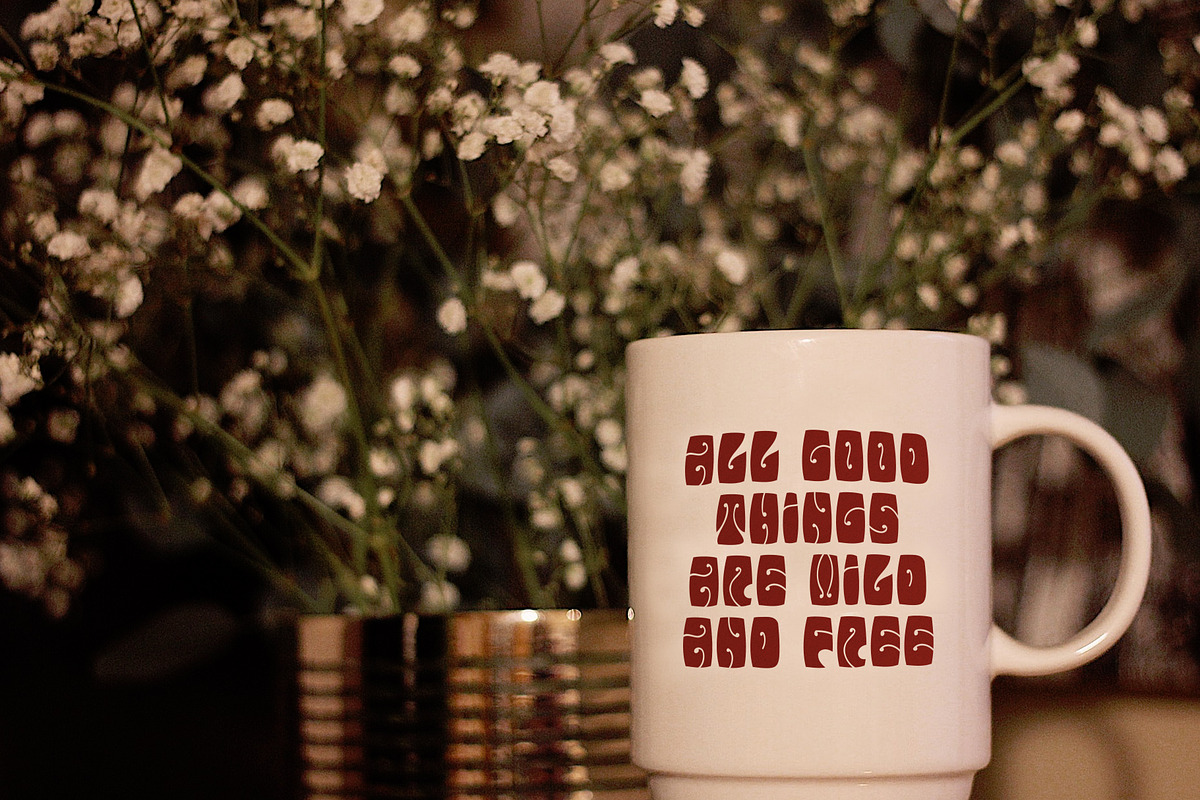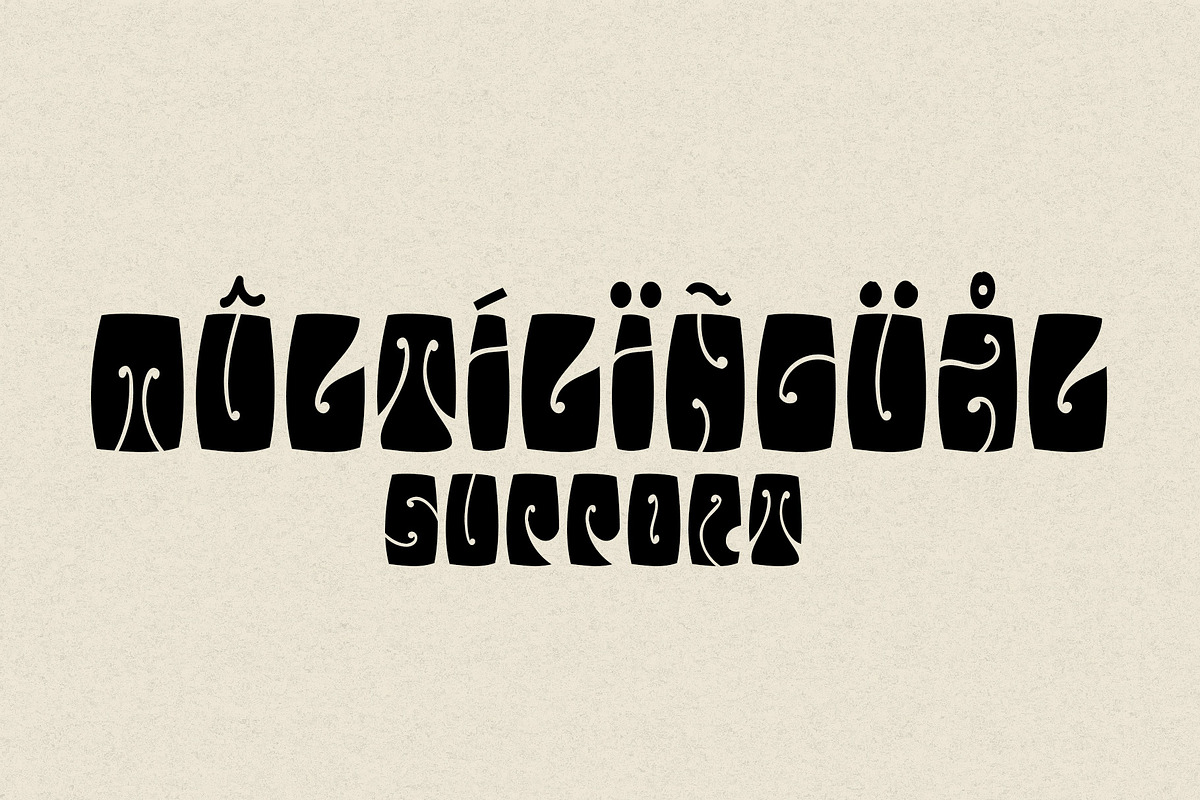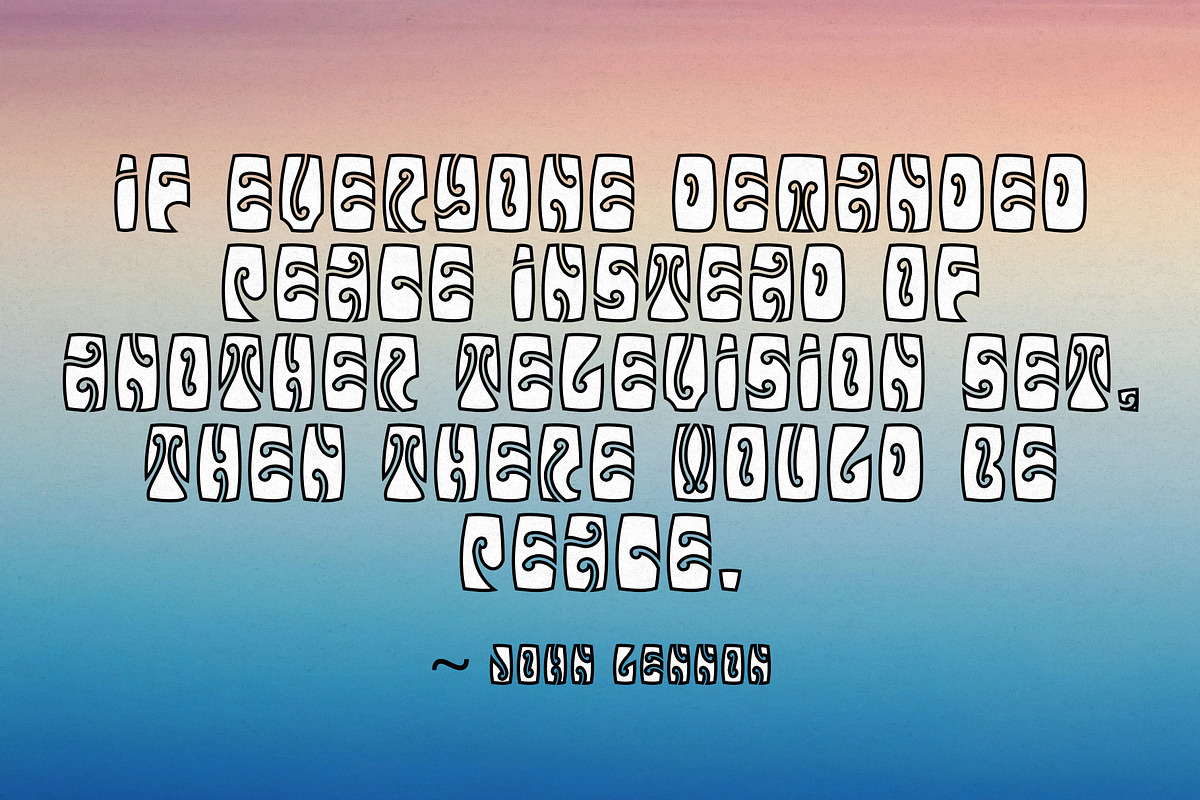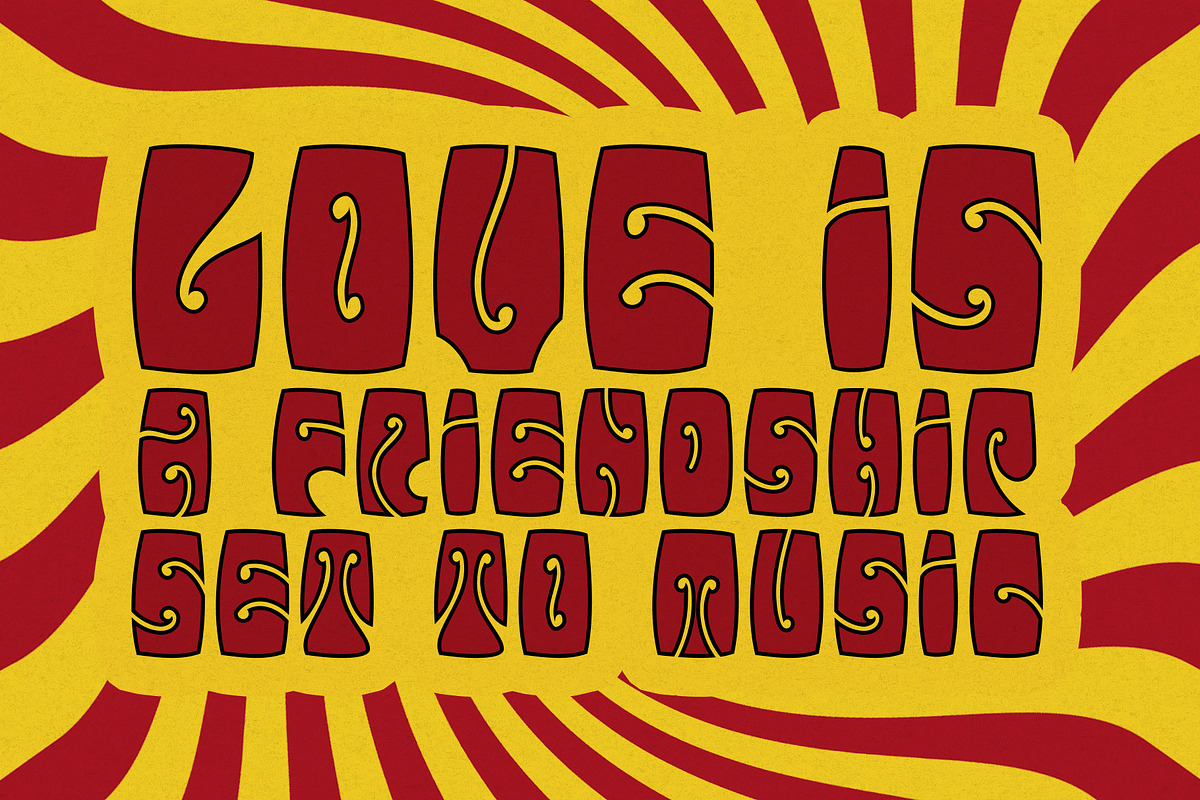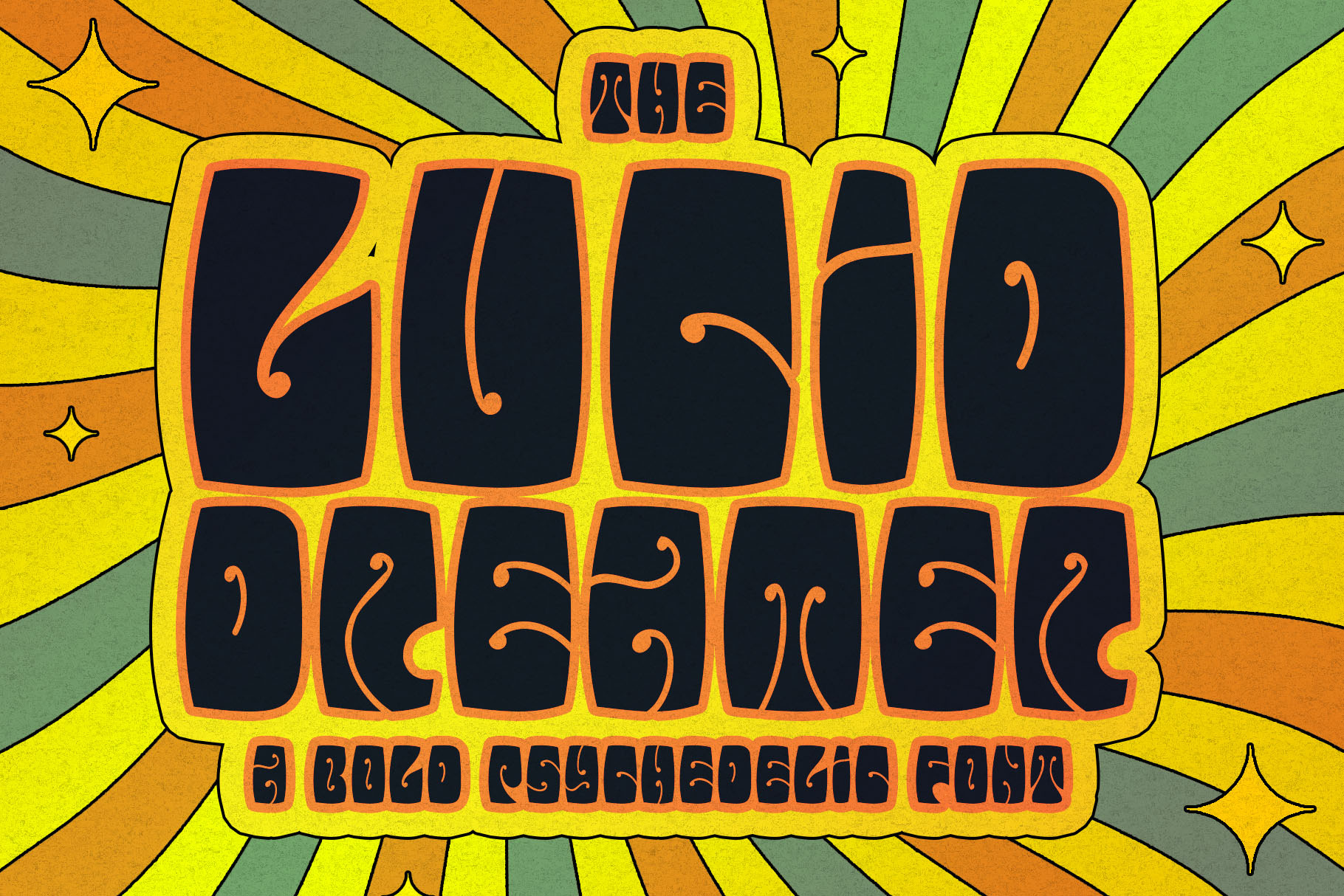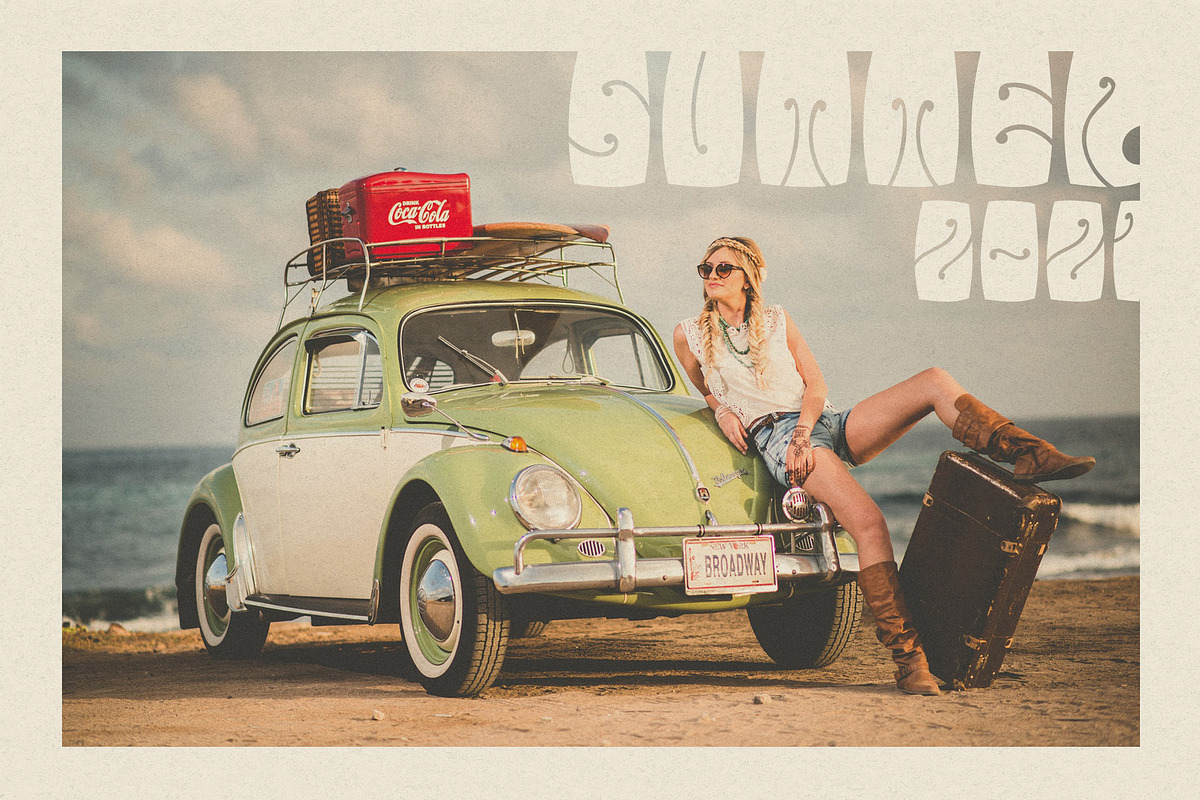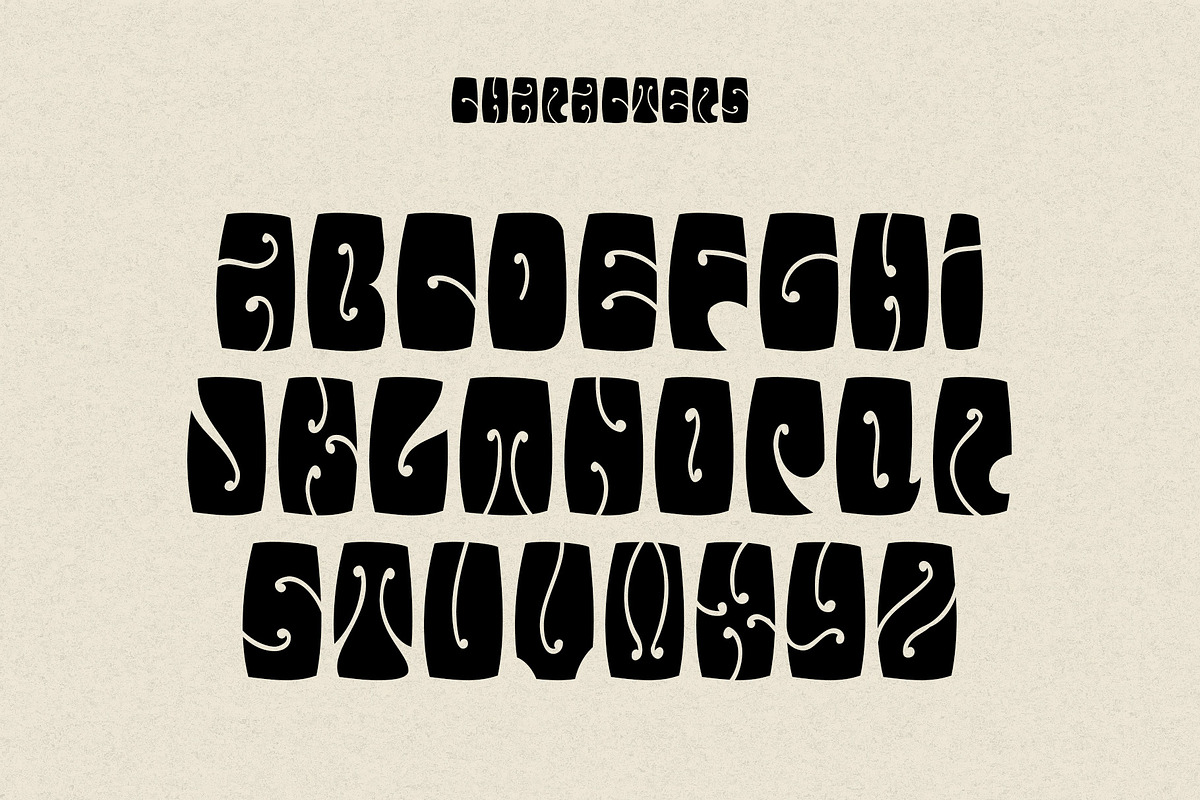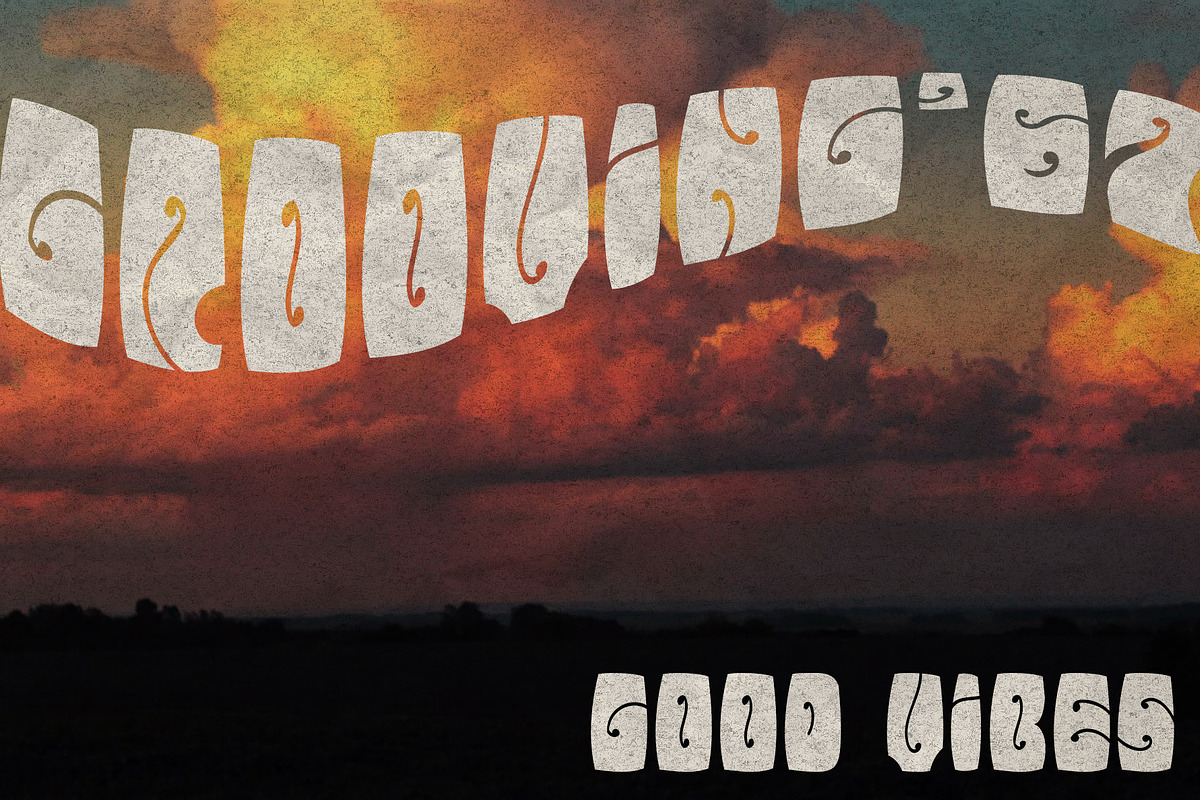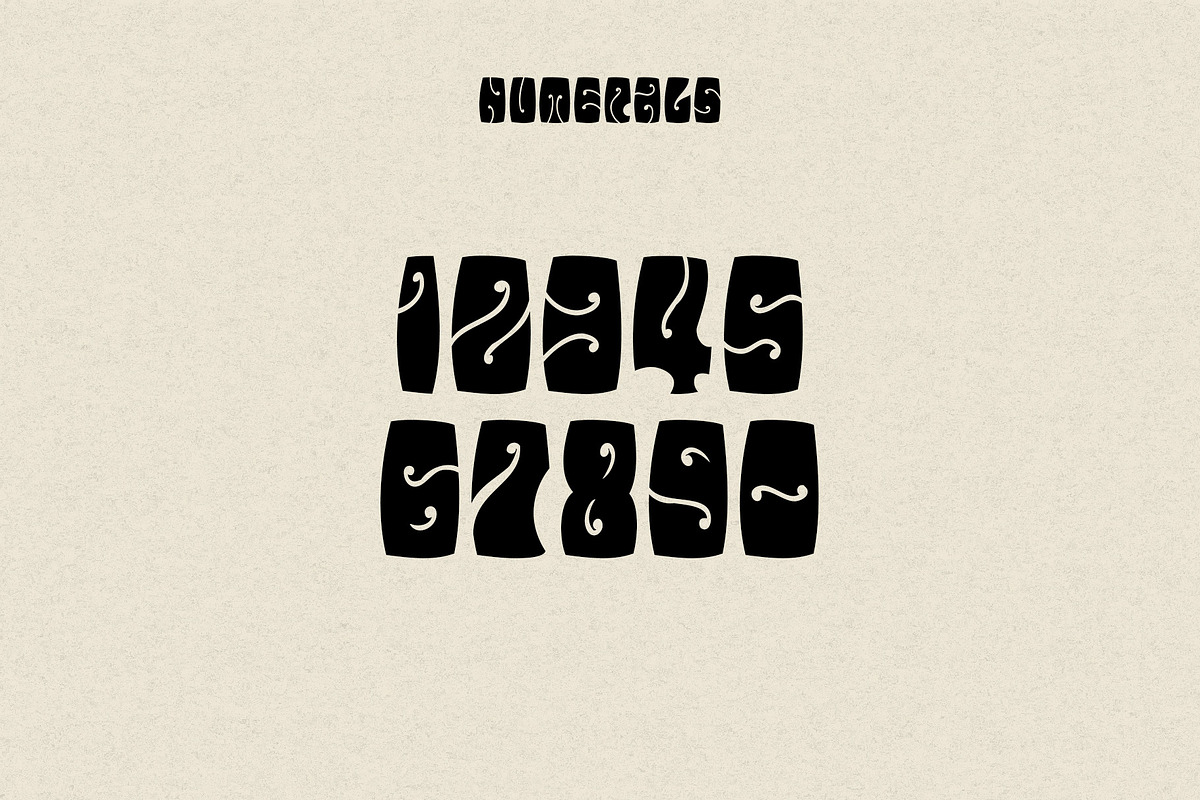
The Lucid Dreamer font
Introducing a retro font called Lucid Dreamer inspired from the psychedelic 60's and 70s style combined with bold typography. Lucid Dreamer comes in OTF and TTF formats and has multilingual support.
Lucid Dreamer is best uses for headings, Logo type, quotes, apparel design, invitations, flyer, poster, greeting cards, product packaging, book cover, printed quotes, cover album, movie, etc